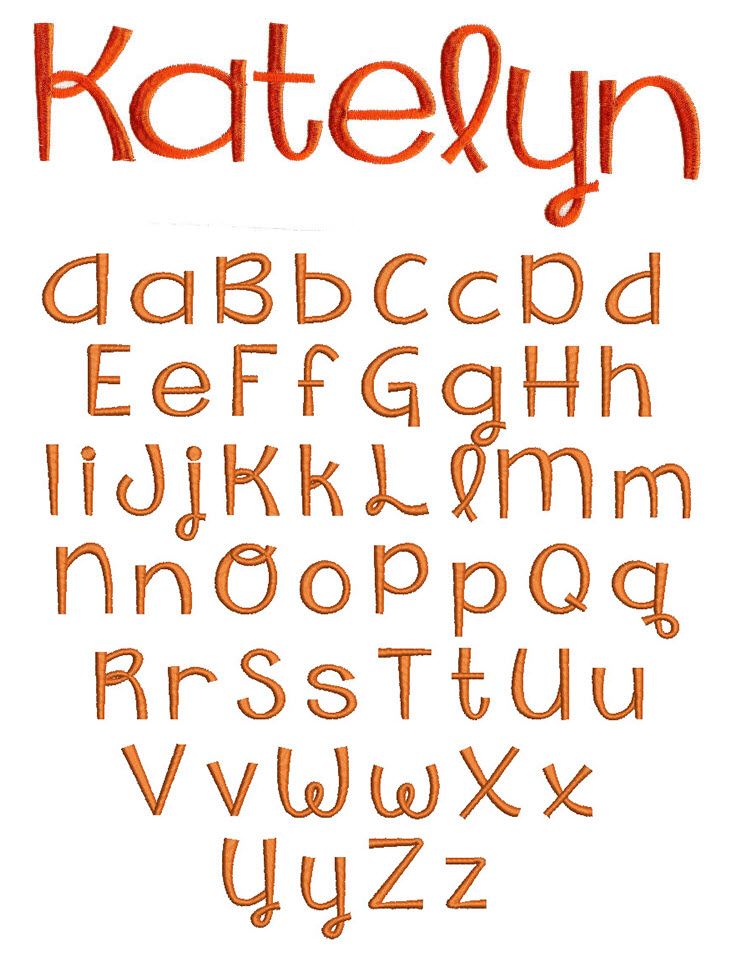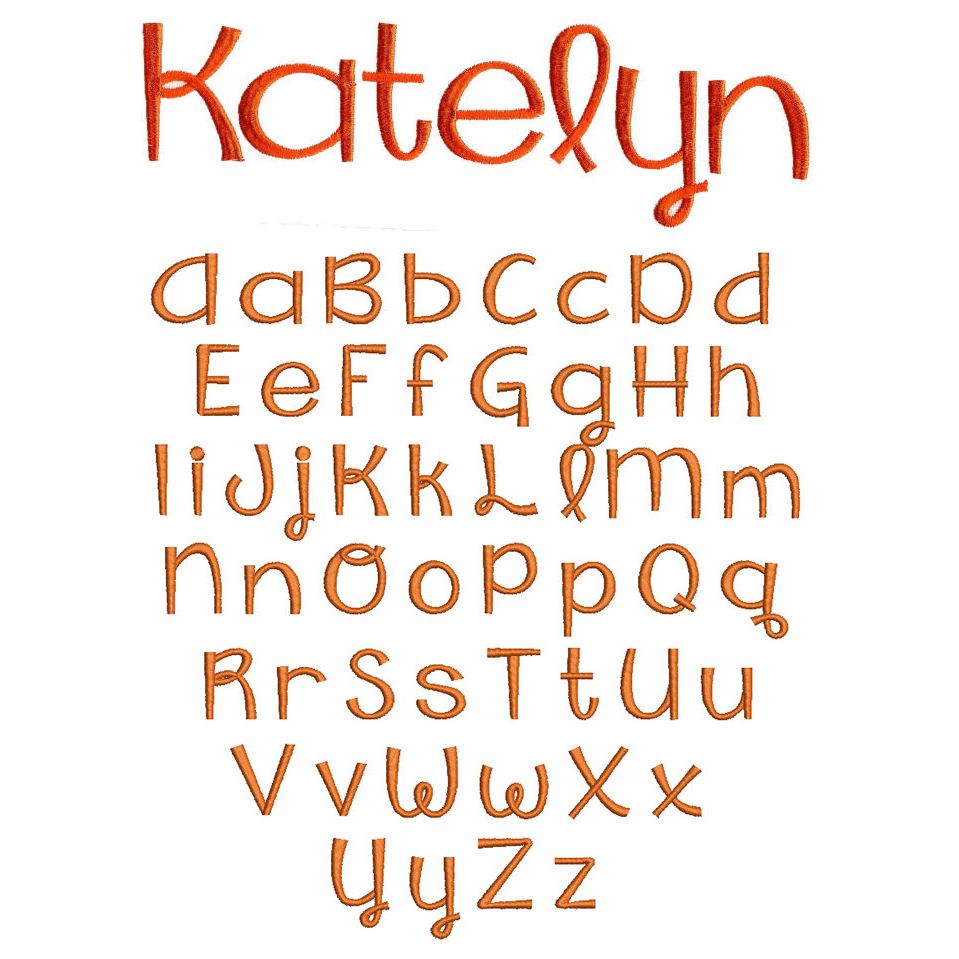
Falling Slowly Satin Stitch Embroidery Font
So sweet and whimsical! All of our font alphabets are 100% manually digitized to bring you maximum stitch quality.